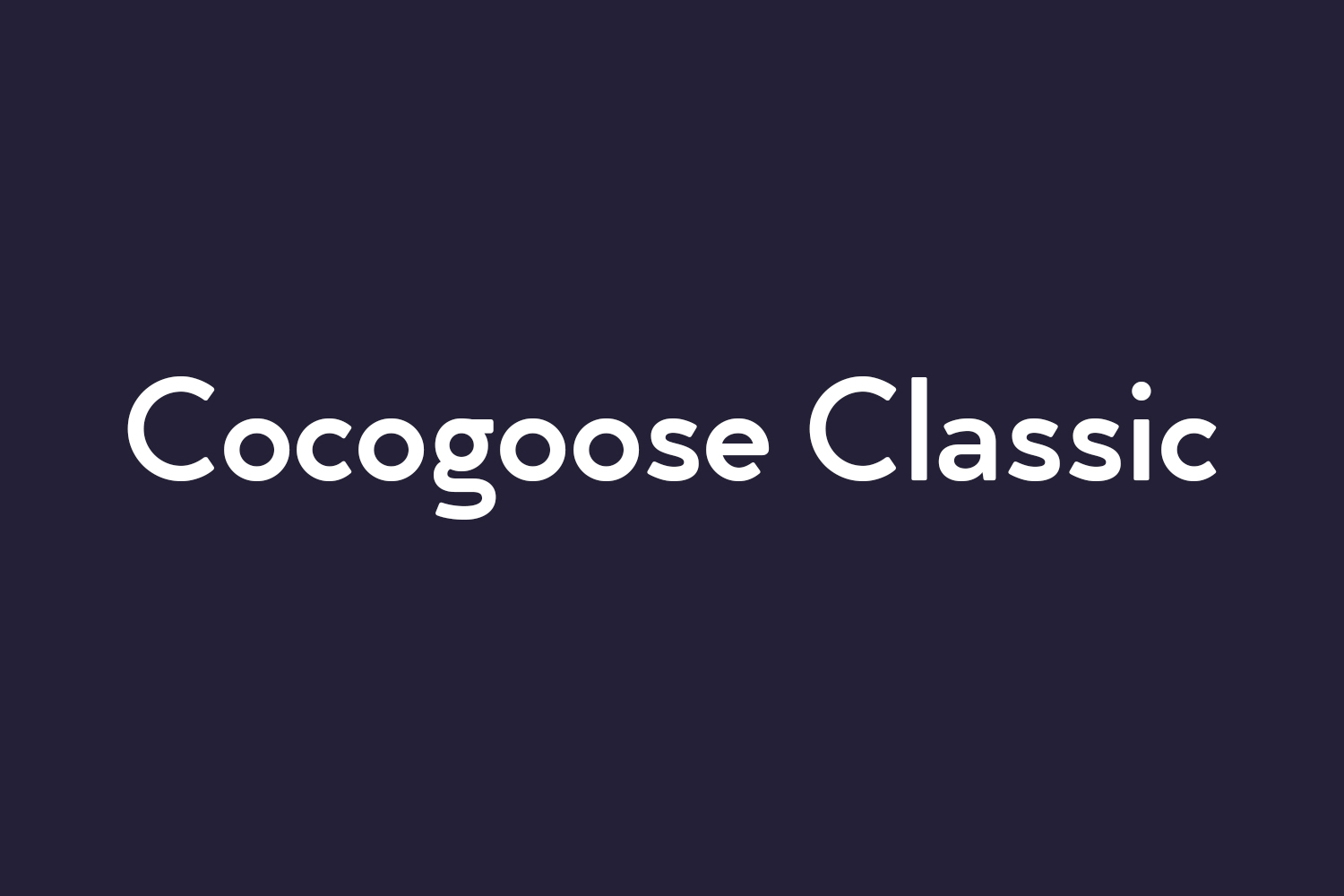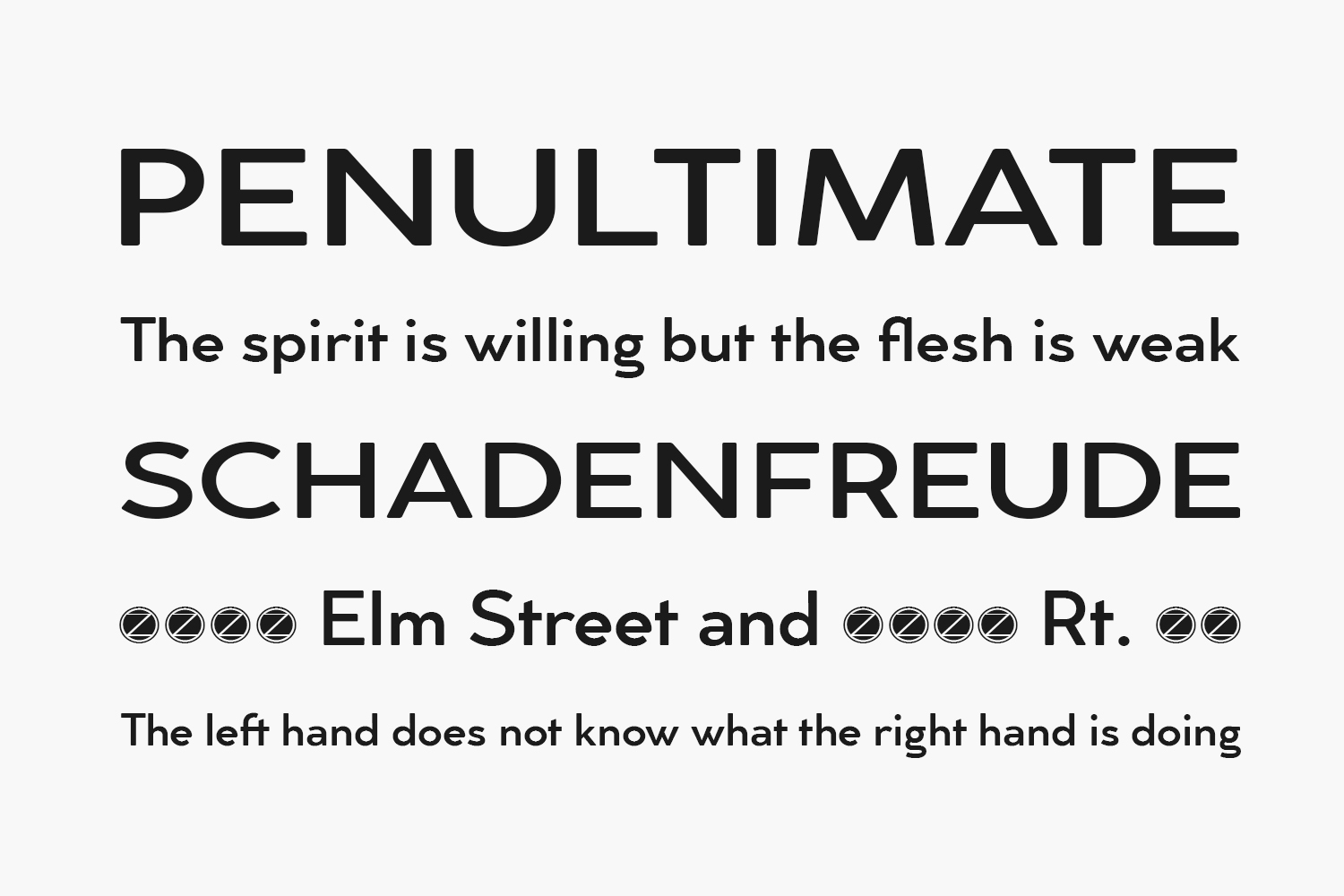
Cocogoose Classic is a geometric sans‑serif typeface from Zetafonts, first released in 2019 by Cosimo Lorenzo Pancini, Andrea Tartarelli, and Francesco Canovaro. It updates the original display-style Cocogoose by refining its lowercase design—smaller x‑height, rounded dots—and adding eight weights plus italics, with over 1,000 glyphs including alternates, ligatures, and numeral options. Available in TTF format, the trial version (Medium & ExtraBold) is free for personal use; a commercial license can be purchased through Zetafonts.
Why Choose Cocogoose Classic?
- Complete Family Range: Eight weights from Thin to Black, with matching italics.
- Geometric & Contemporary: Clean, low-contrast letterforms with soft rounding—ideal for modern design.
- Rich Open-Type Features: Includes positional numerals, alternates, ligatures—enhancing typographic control.
- Multilingual Support: Covers Latin, Greek, and Cyrillic scripts—supporting over 200 languages.
- Versatile & Readable: Great for logos, headlines, UI, editorial, signage, and even text blocks.
Where to Use Cocogoose Classic?
- Logos & Branding: Strong, modern wordmarks with geometric clarity.
- Editorial & UI: Crisp headlines or body text with typographic finesse.
- Signage & Packaging: Legible and bold at any scale.
- Web & App Interfaces: Clean sans-serif ideal for navigation and UI text.
- Motion & Print Media: Works seamlessly across digital and printed layouts.
Design Tips with Cocogoose Classic
Use lighter weights for refined body copy and bolder styles for impactful headlines. Pair with serif fonts like Merriweather for editorial contexts, or with minimalist sans-serifs like Montserrat in modern UI. Take advantage of alternate glyphs and ligatures for polished typographic detail. Its rounded geometry pairs well with neutral colors and minimal layouts.
- Weights: Thin, ExtraLight, Light, Regular, Medium, Bold, ExtraBold, Black + italics.
- Glyphs: Uppercase/lowercase, numerals, punctuation, extended Latin, Greek, Cyrillic, alternates, ligatures – 1,000+ glyphs.
- Language Support: 200+ languages including Western/Central European, Cyrillic, Greek.